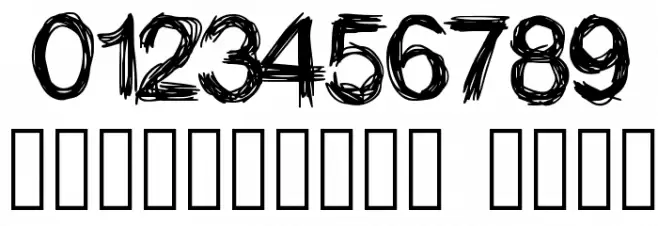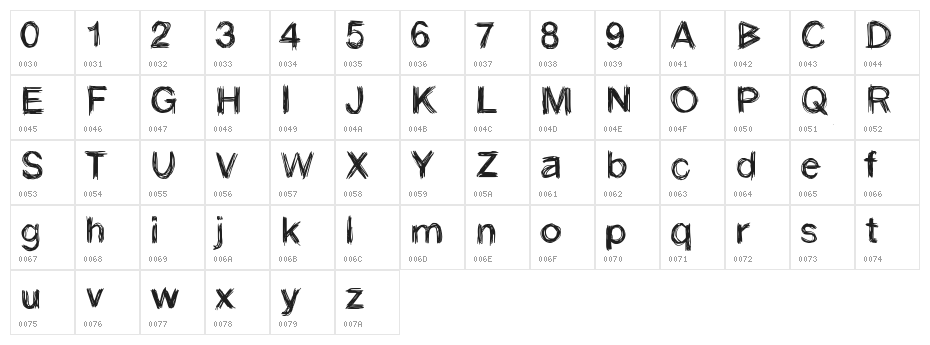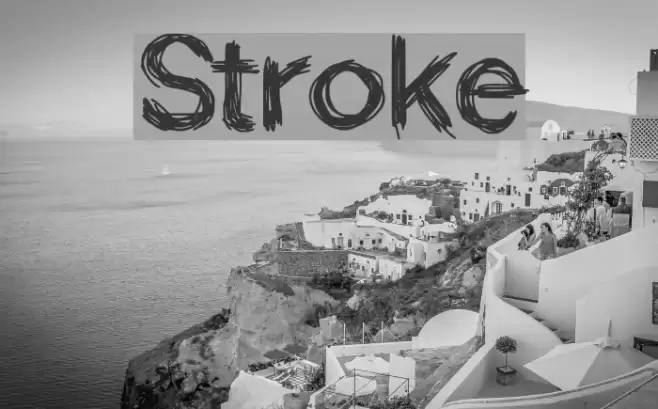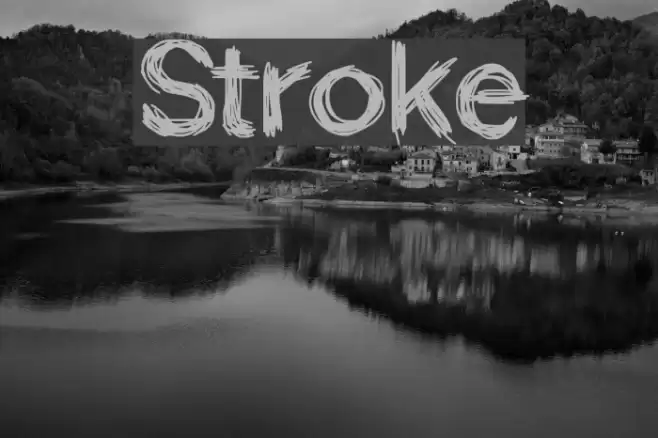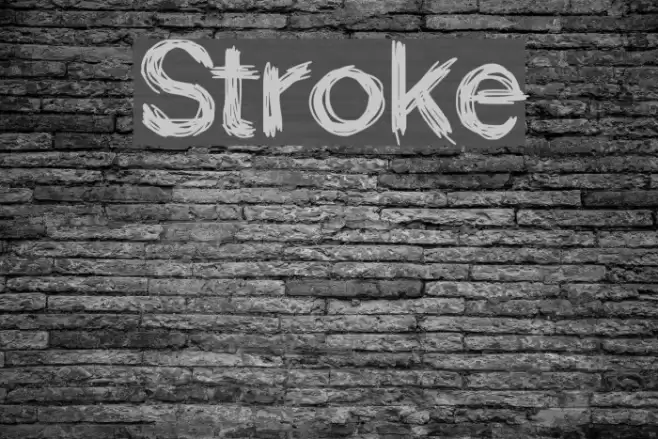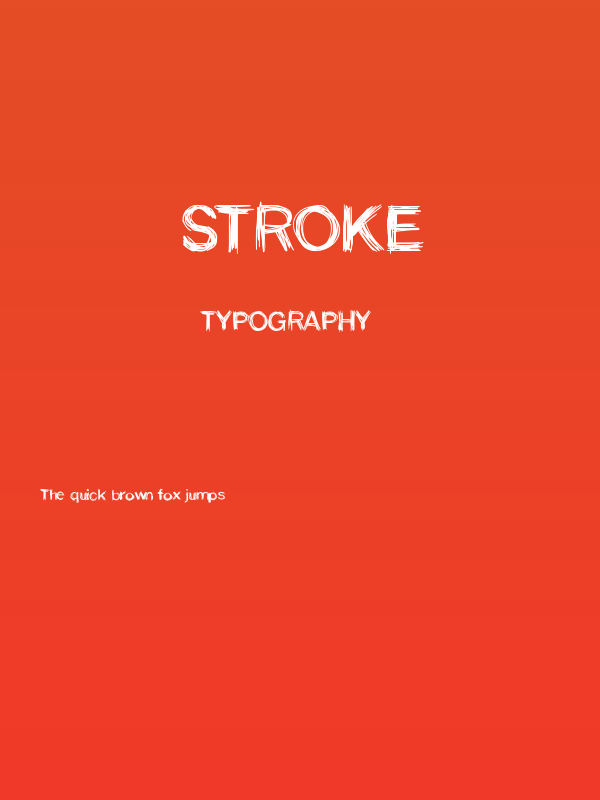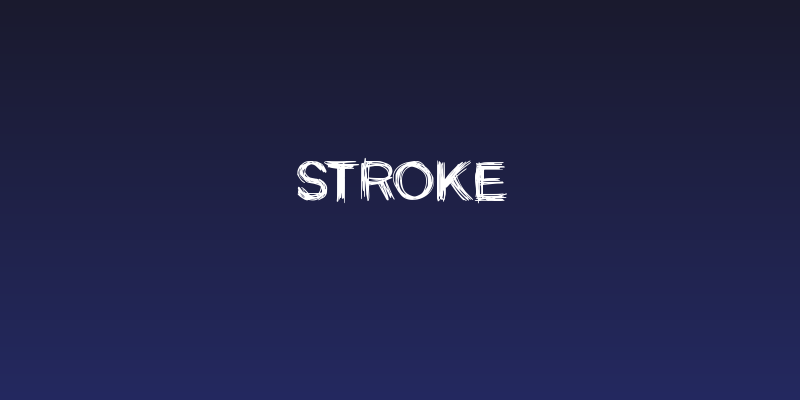
Stroke Font
Stroke Description
This font features a distinctive, hand-drawn style with a rough, textured appearance that mimics the look of brush strokes or scribbles. The characters are bold and dynamic, with uneven edges and varying line thicknesses that give it an energetic and artistic feel. The uppercase and lowercase letters maintain a consistent style, while the numbers and special characters complement the overall design. This font is ideal for projects that require a creative and informal touch, such as posters, artistic designs, or branding that aims to convey a sense of spontaneity and creativity.
| Overall Style | Artistic, Creative |
| Use Case | Headlines, Posters, Artistic Designs |
| Proposed Projects | Ideal for artistic posters, creative branding, and informal design projects. |